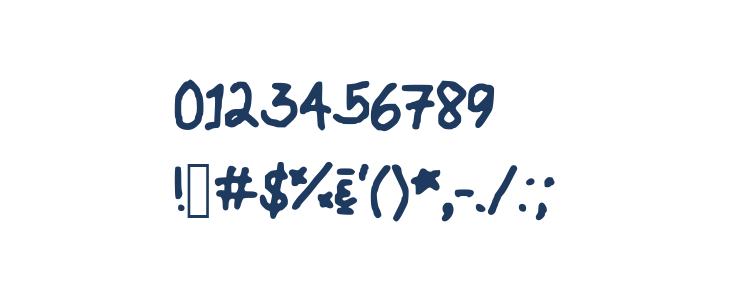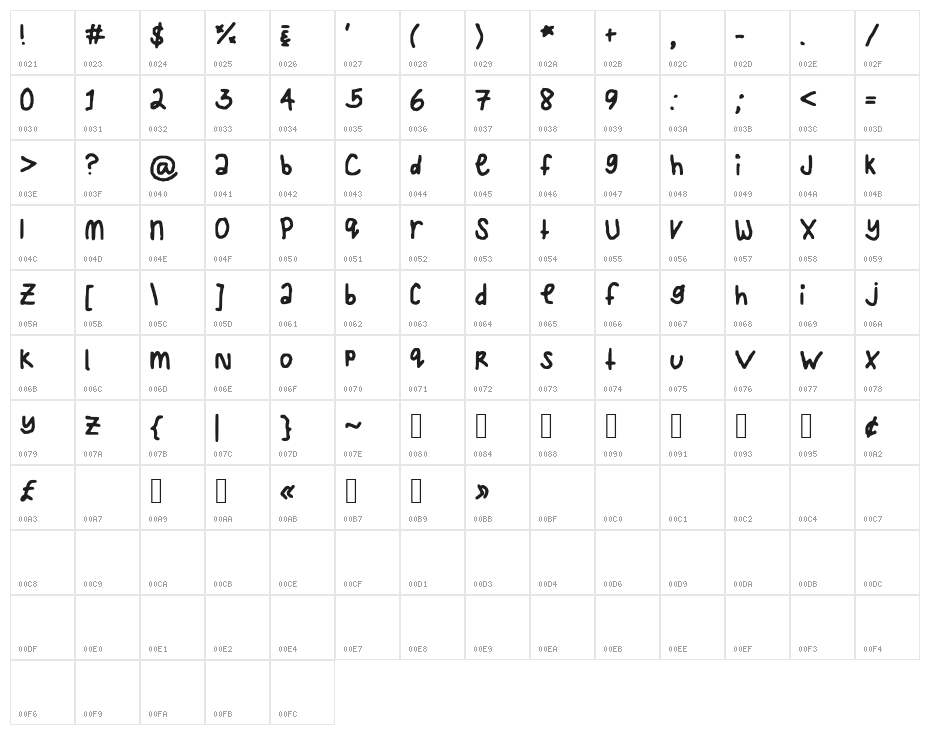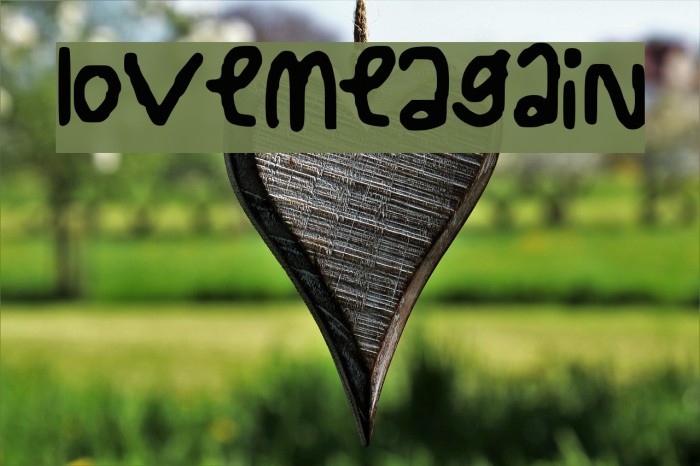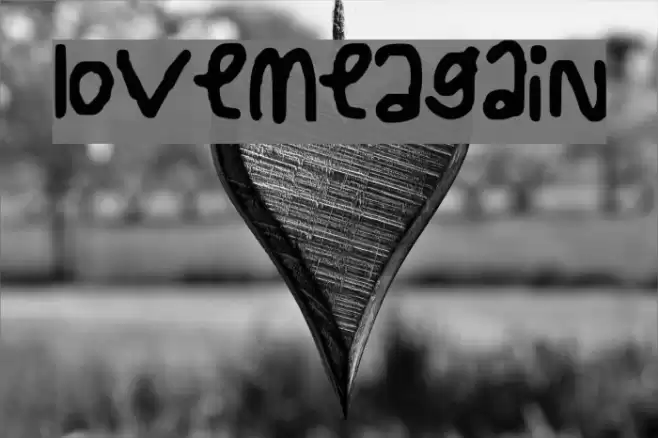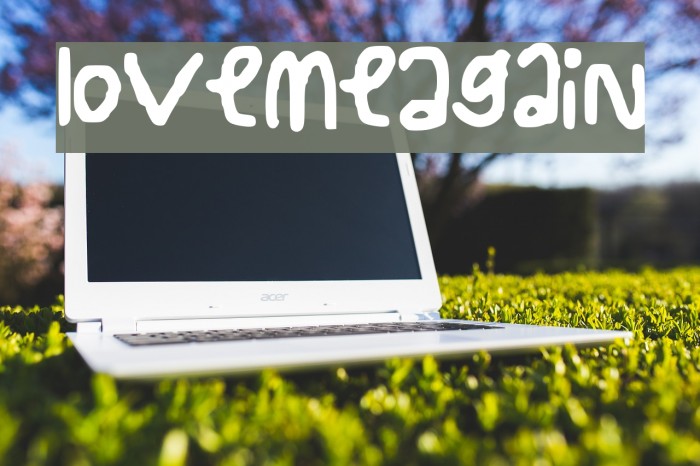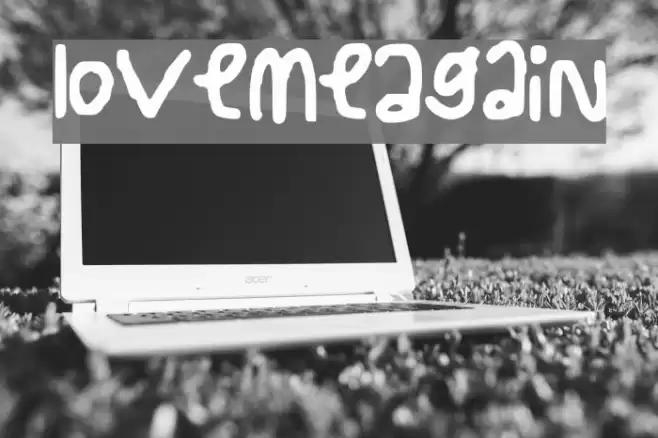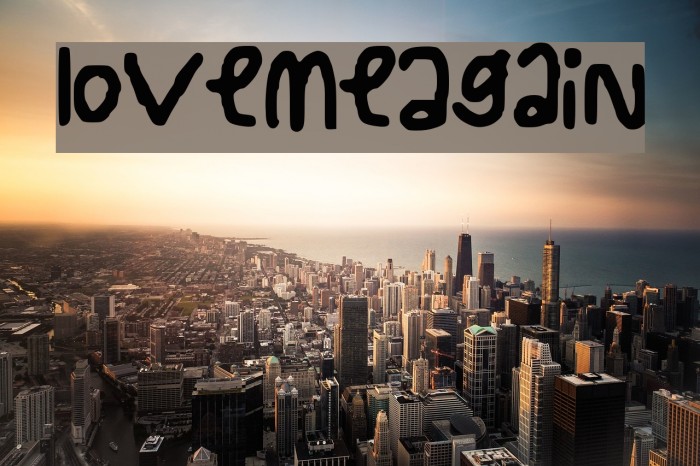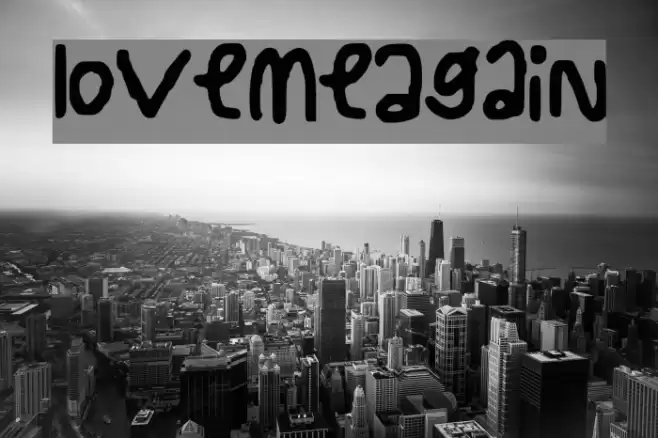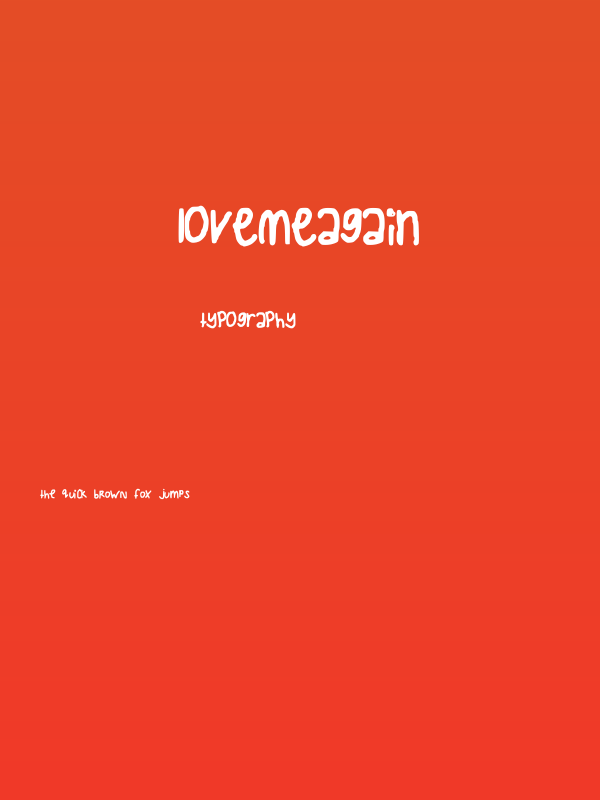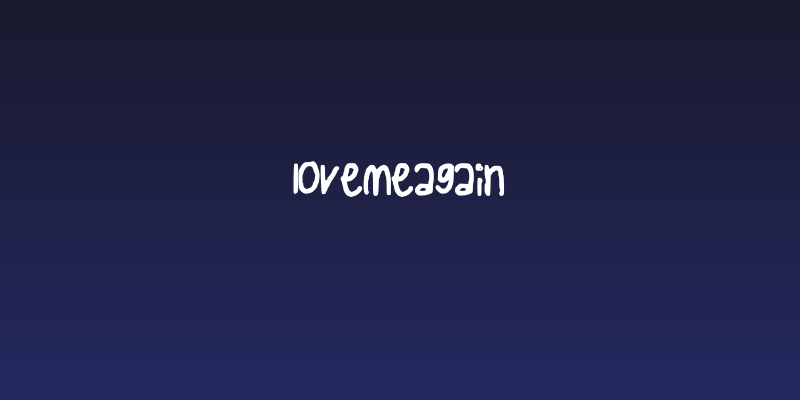
LoveMeAgain Font
LoveMeAgain Description
This font features a playful and casual handwritten style, characterized by its bold and rounded letterforms. The strokes are consistent in width, giving it a uniform appearance. The letters have a slight slant, adding a dynamic and informal feel. The uppercase and lowercase letters are distinct, with the uppercase being slightly larger and more pronounced. The numbers and special characters maintain the same playful aesthetic, making it suitable for creative and informal projects.
| Proposed Projects | Ideal for greeting cards, children's books, playful branding, and casual invitations. |